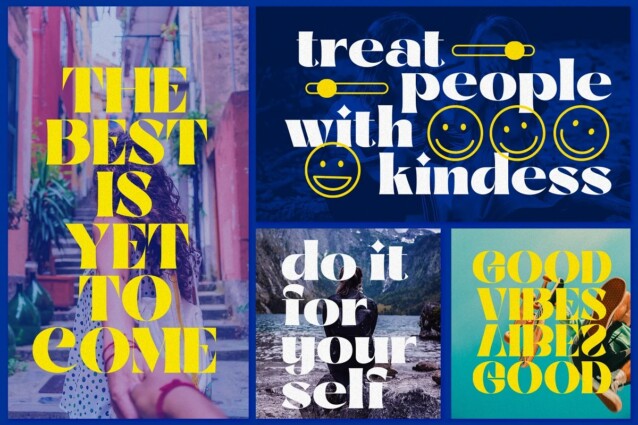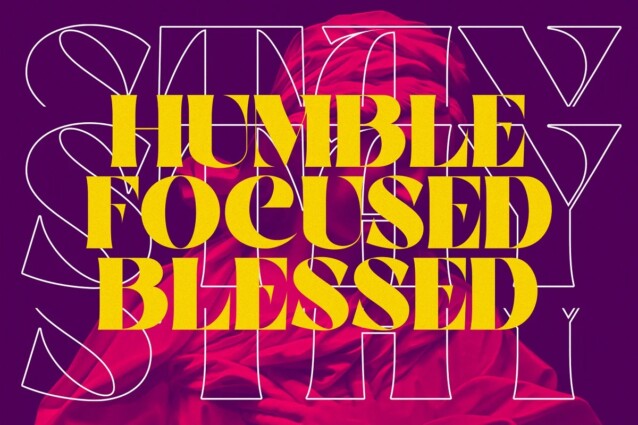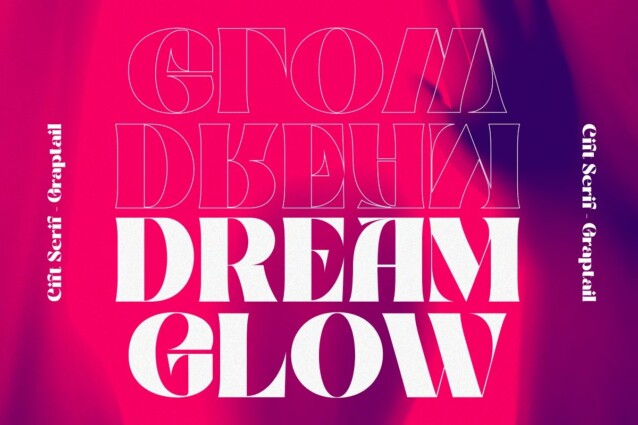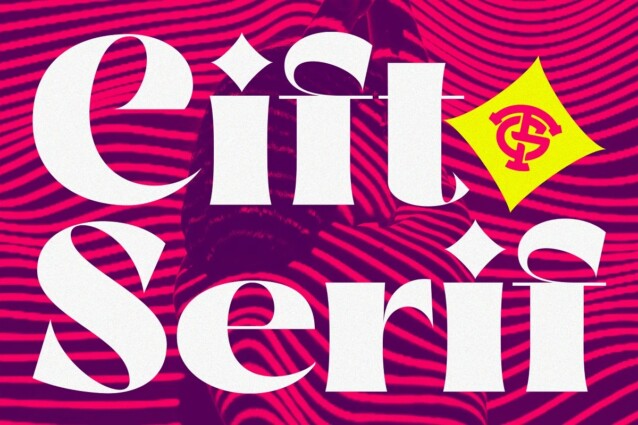
Cift Serif Font
Cift Serif Font is a contemporary serif typeface, special designed for printing and advertising. Cift Serif is inspired by the work of charming lettering artists with a combination of Old Style Display Bold. Each letter is modified so that the distance, width and weight can give the beauty of the alternates given. A passionate curve gives a touch of beauty to this font.